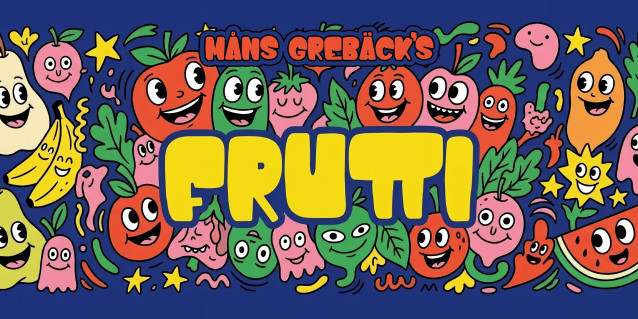
Frutti Font
Frutti is a chunky, rounded display typeface with a playful cartoon spirit.
Every letter is thick, bouncy and softly rounded, built from simple bold shapes that feel hand-drawn and friendly. It is loud and cheerful at big sizes, where the fat counters really show. It suits a bubblegum wrapper, a kids’ cereal box, or a sticker slapped on a skateboard.
It suits a bubblegum wrapper, a kids’ cereal box, or a sticker slapped on a skateboard.